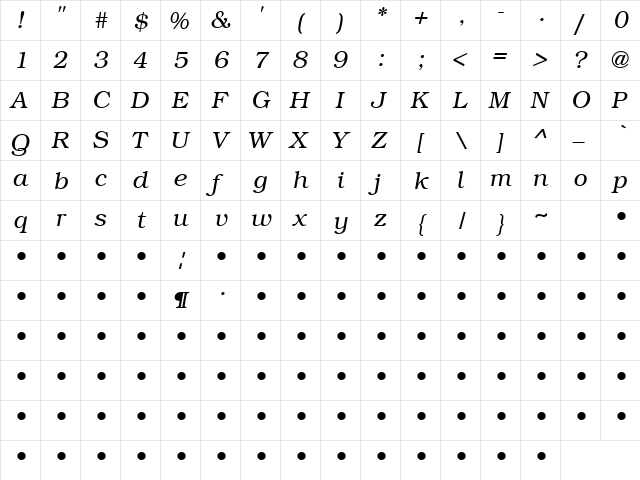
QTBookmann Italic
Design Context for QTBookmann Typeface
QTBookmann offers clean, dependable letterforms without strong stylistic allegiance, making it a practical choice for designers who need flexibility. The slanted form adds forward momentum and visual energy.
Pro Tip: Use QTBookmann for emphasis, pull quotes, and subheadings where its slanted energy can add rhythm to the layout.